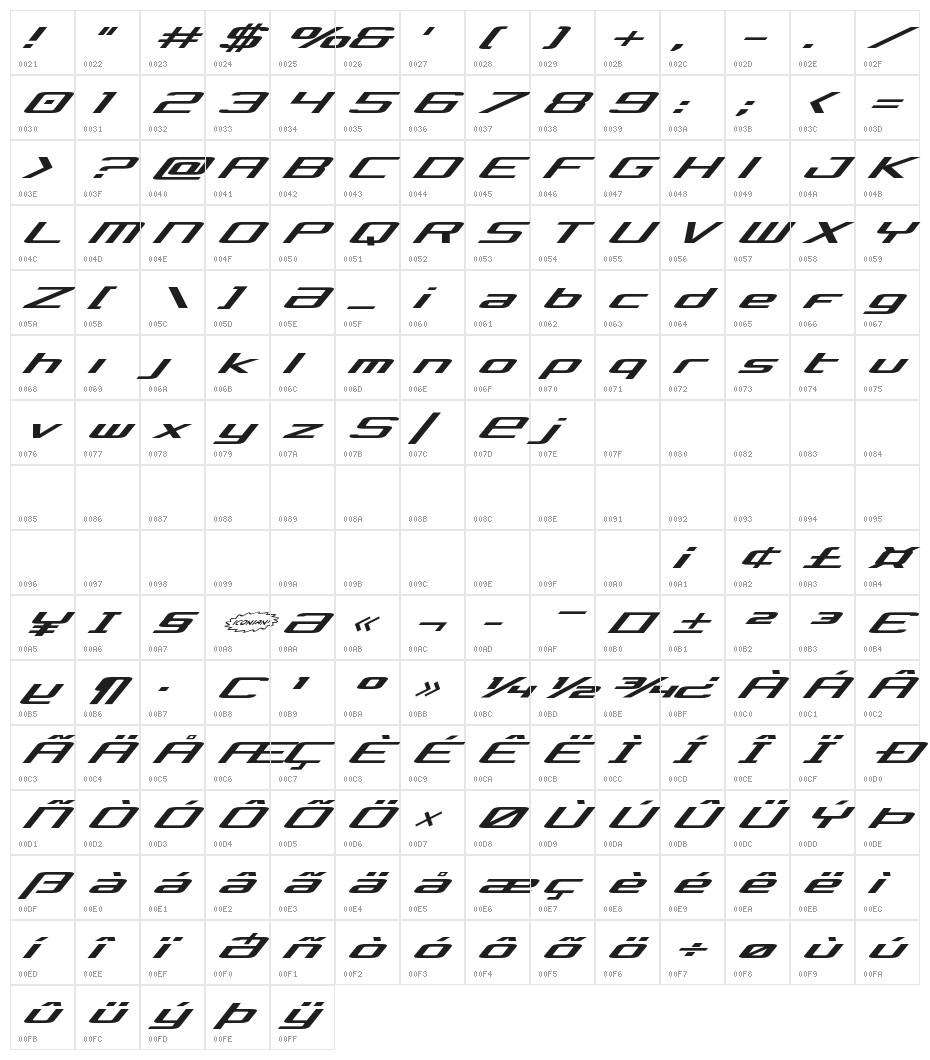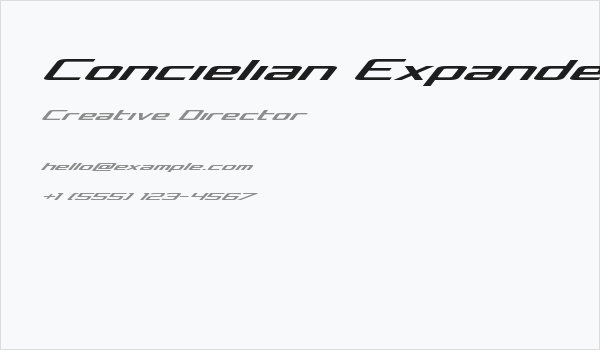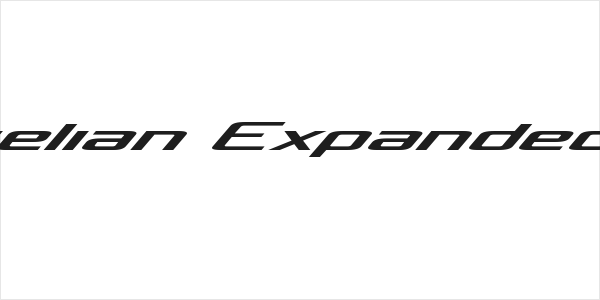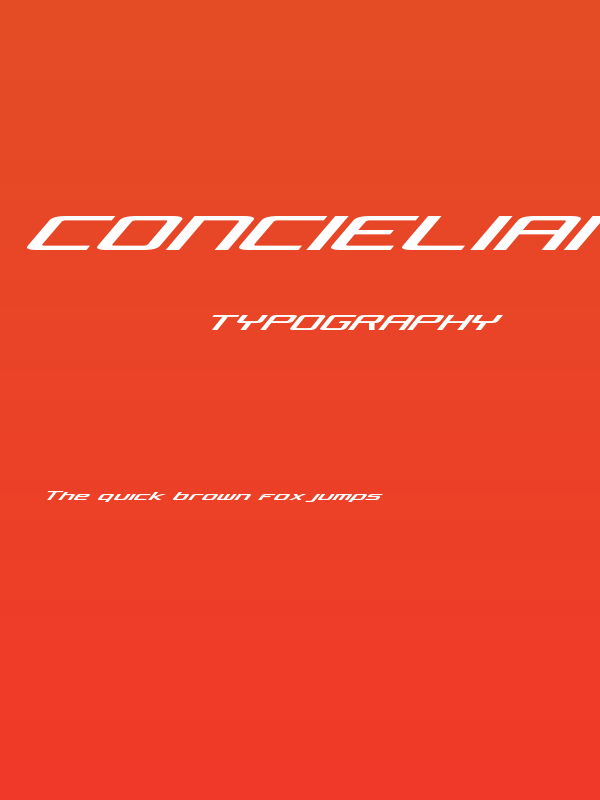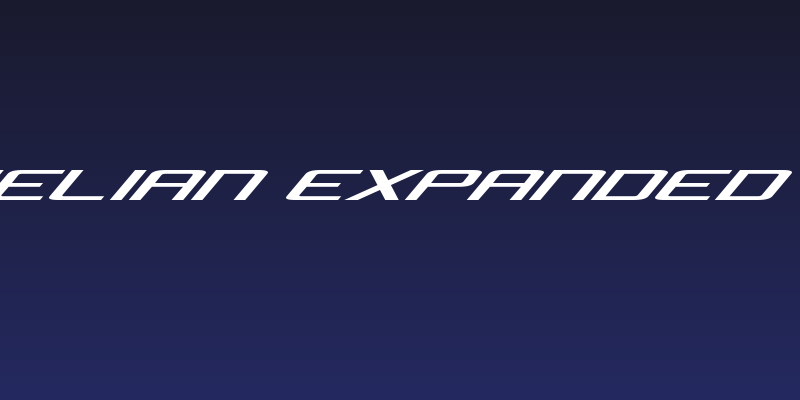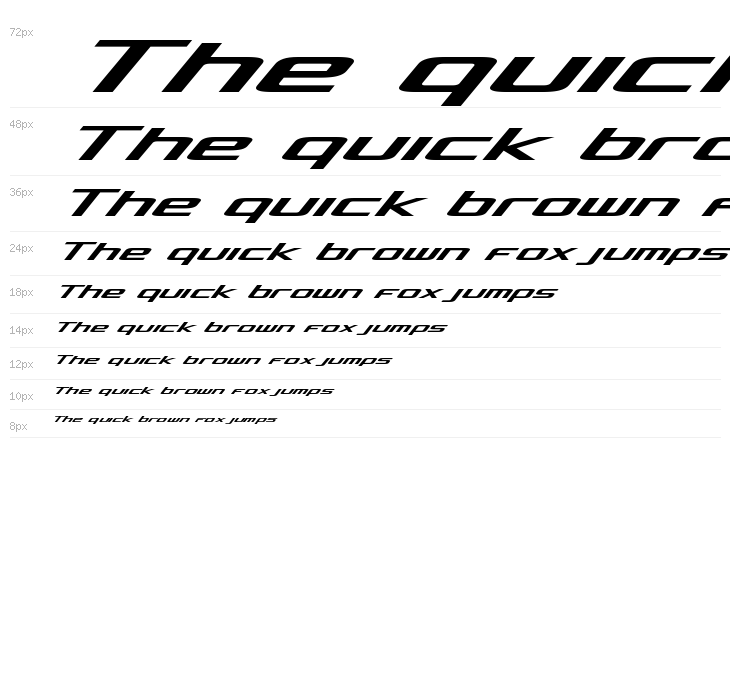
Concielian Expanded Italic Font
Concielian Expanded Italic Description
This font features a sleek, modern design with an italicized and expanded style. The characters have a futuristic appearance, characterized by sharp angles and clean lines. The uppercase and lowercase letters maintain a consistent slant, enhancing the dynamic feel of the typeface. The numerals and special characters are designed to match the overall aesthetic, providing a cohesive look. The font's expanded width allows for greater readability, making it suitable for various design applications where a bold statement is desired.
| Use Case | Headlines, Logos, Digital Interfaces |
| Proposed Projects | Ideal for technology branding, sci-fi themed projects, modern advertisements, and digital interfaces. |